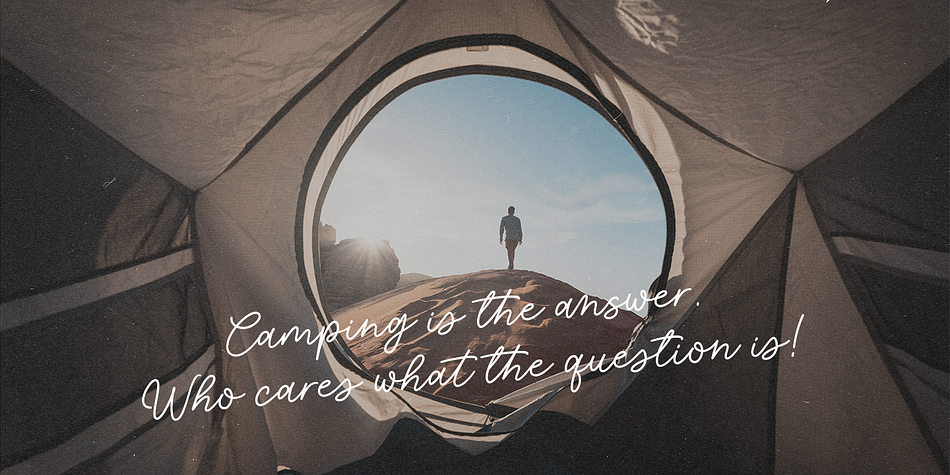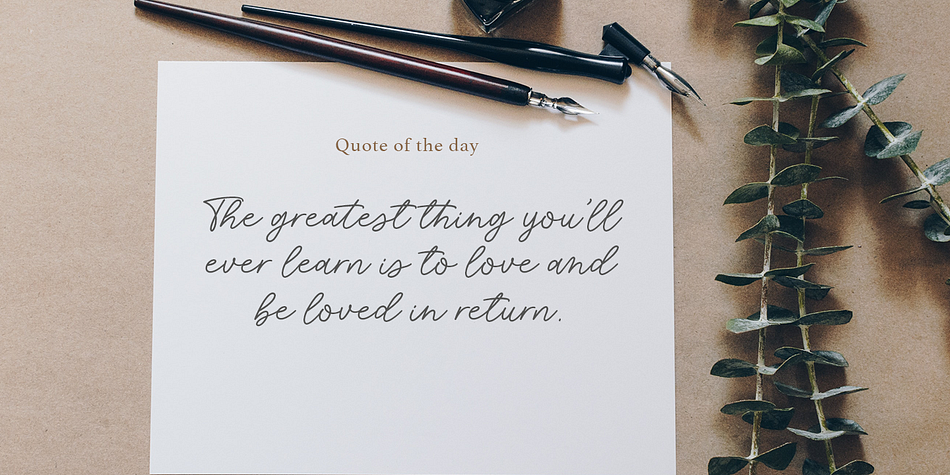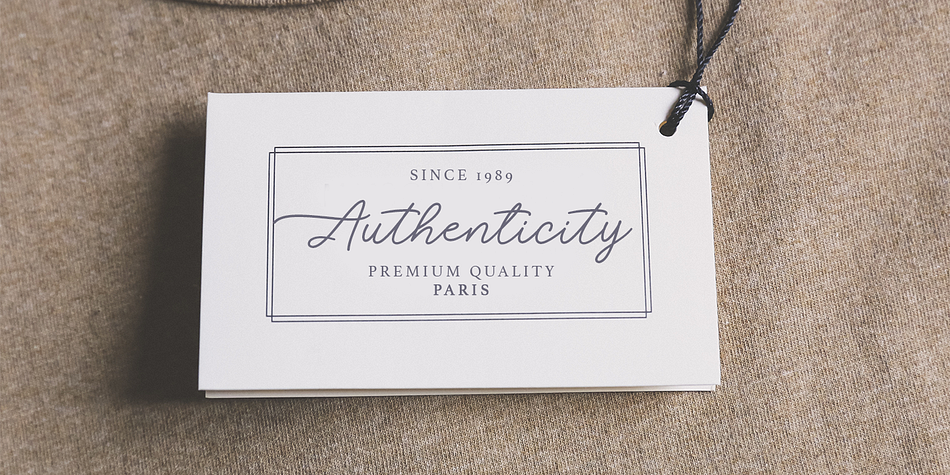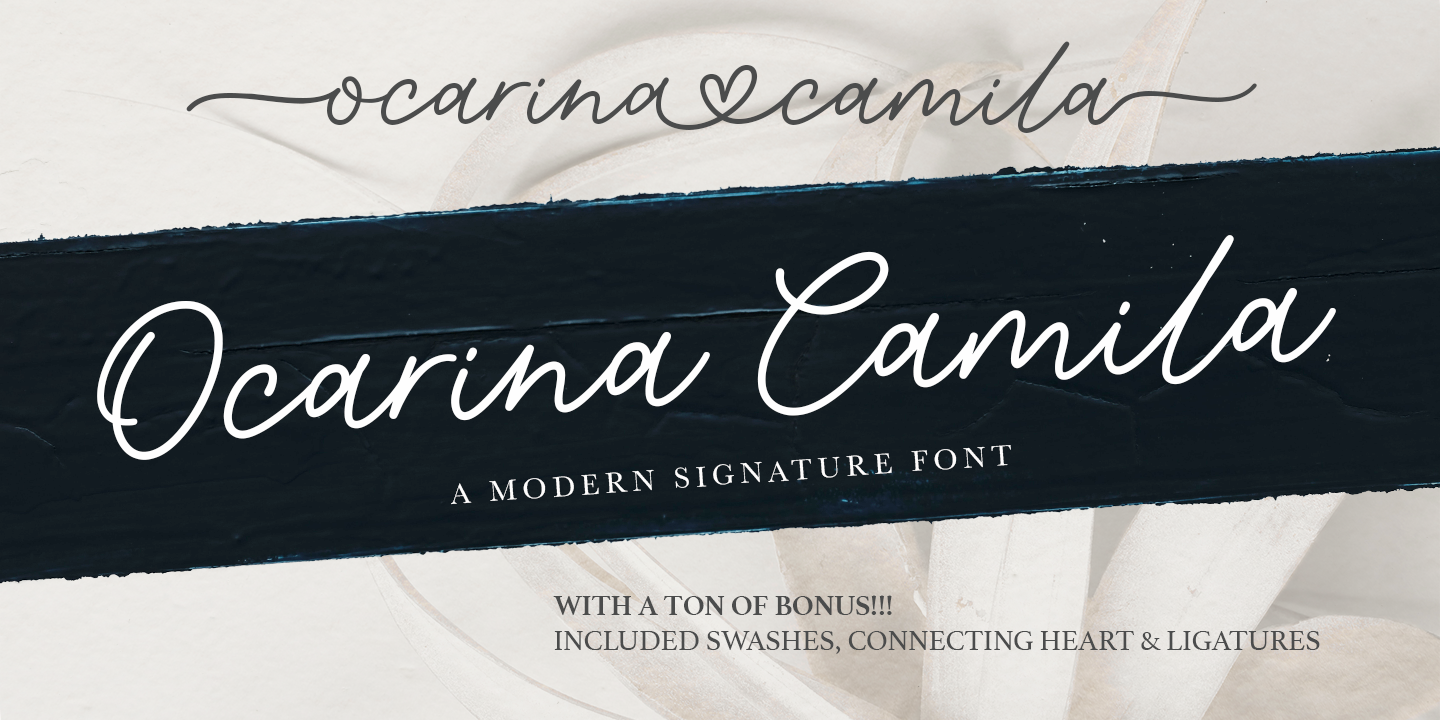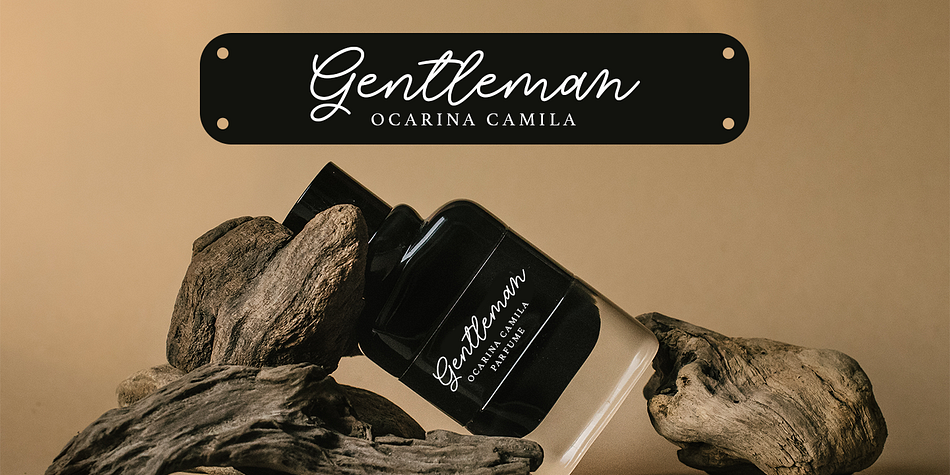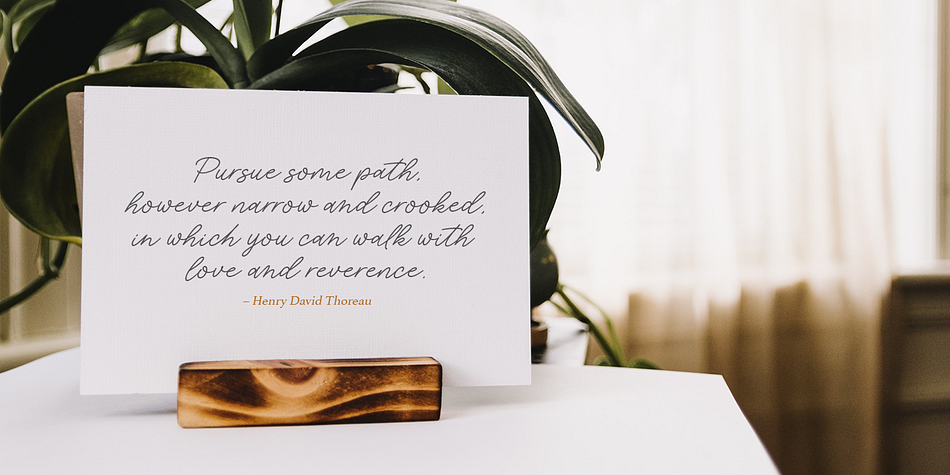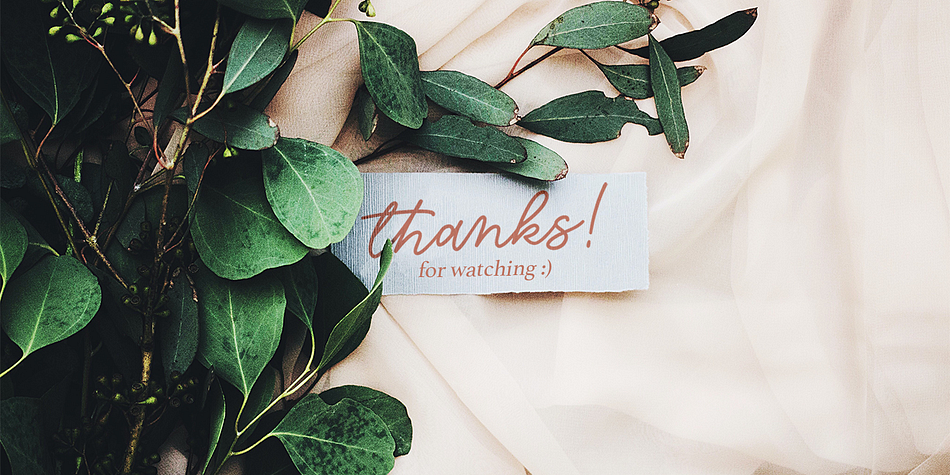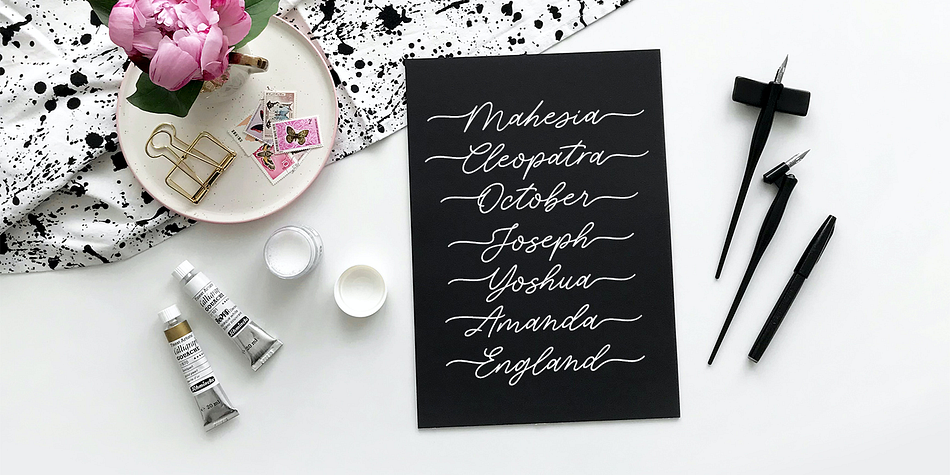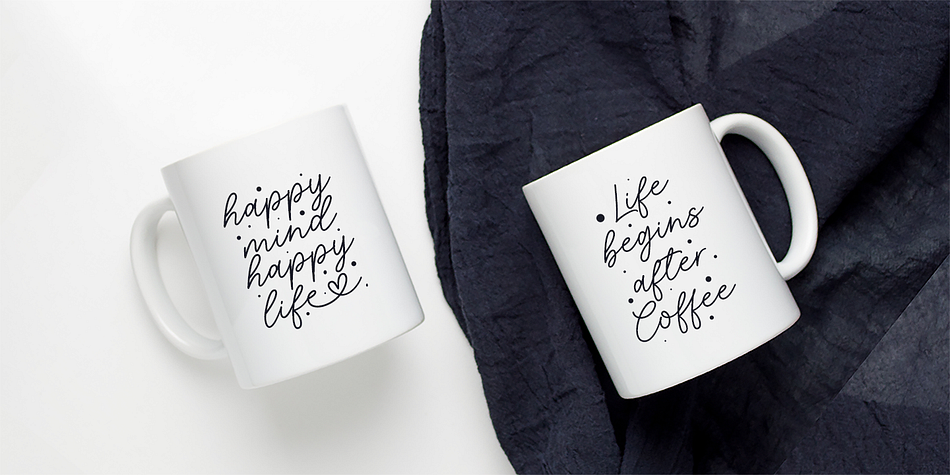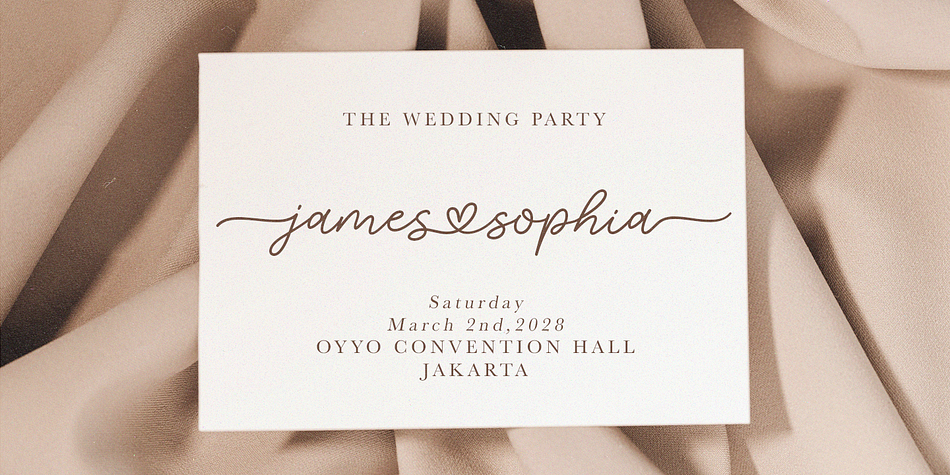
Ocarina Camila
Ocarina Camila is a script font family published by Fargun Studio.
Introducing the new Ocarina Camila script font – A beautiful and super-chilled new handwriting font script with some sexy swashes, connecting heart and stylish ligatures ????